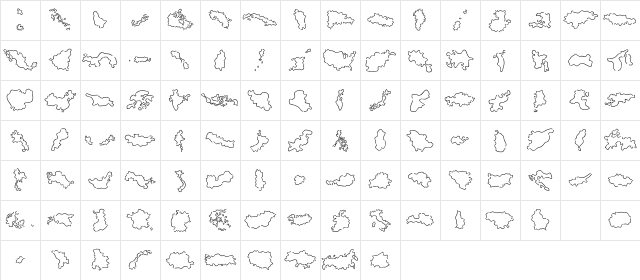
Mini Pics Global N Loose Free Font
Mini Pics Global N Loose
Style: Global N Loose
Complete Mini Pics Global N Loose glyph index. Displaying only characters natively supported by Mini Pics Global N Loose font.
Design Context for Mini Pics
Mini Pics is a composed and adaptable typeface that performs quietly and consistently across a wide range of design contexts.